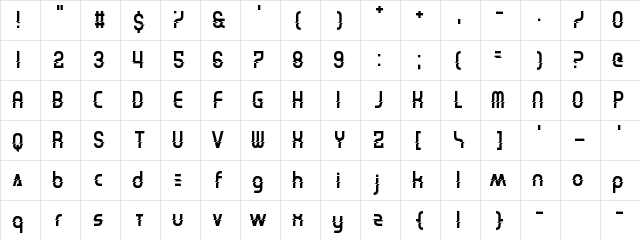
Electric Shocker Regular
| Designer | NAL |
Design Context for Electric Shocker Typeface
Electric Shocker has a distinctly futuristic character, with geometric precision and clean angles that feel at home in technology, gaming, and sci-fi contexts.
Pro Tip: Try Electric Shocker with generous letter-spacing in UI labels and navigation — the geometric forms benefit from room to breathe.